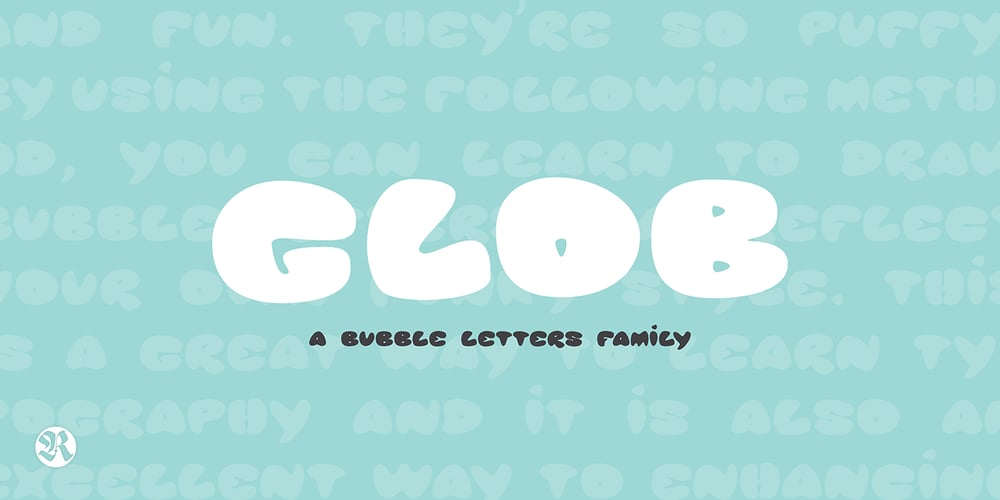
Glob Font Family was designed by Giuseppe Salerno, Paco González and published by Resistenza. Glob contains 4 styles and family package options. Glob is a multilanguage bubble-letter font. ?Includes Italic, outline & a rough version, Check out also Modern Love Slanted-Turquoise-Nautica